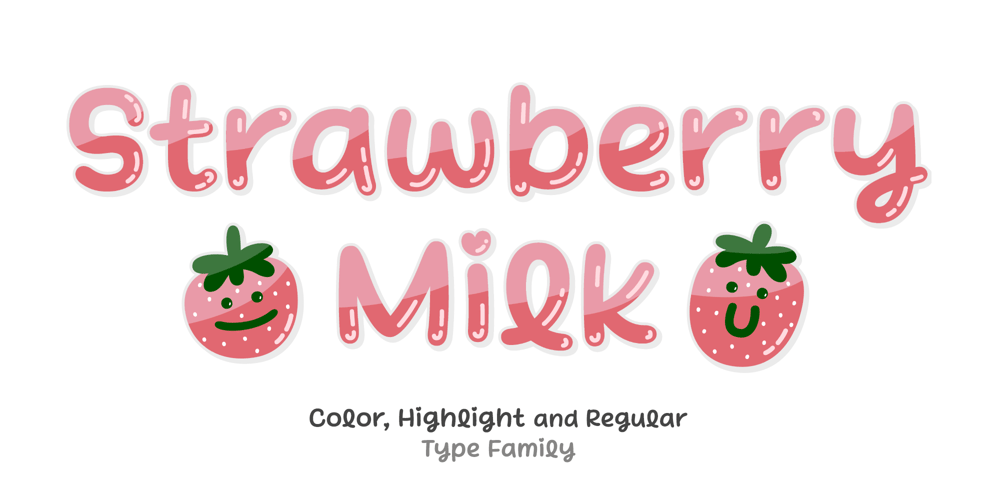
StrawberryMilk Font Family was designed by Saebom Lee and published by HOHOHtype. StrawberryMilk contains 3 styles and family package options. The font “Strawberry Milk” is described as a soft and rounded handwriting style, giving it a playful and lovely appearance. The font has the following characteristics: Color Font: The color font has a color reminiscent of strawberry milk, contributing to its delightful and playful aesthetic. It features a three-dimensional effect, adding depth to the letters. However, this color and effect cannot be customized by the user. Highlight Font: The highlight font is in black and white and also features a three-dimensional effect. Unlike the color font, the color of the highlight font can be changed according to the user’s preference. * Special Characters: The fonts include unique strawberry-shaped characters that appear when certain special characters are combined. For example: Typing ❗ will produce “strawberry 1” Typing ❓ will produce “strawberry 2” It was designed with applications such as advertising and packaging, editorial and publishing, logo, branding and creative industries, poster and social media, and marketing in mind.